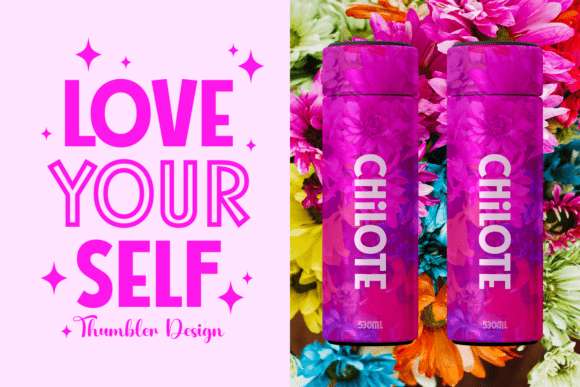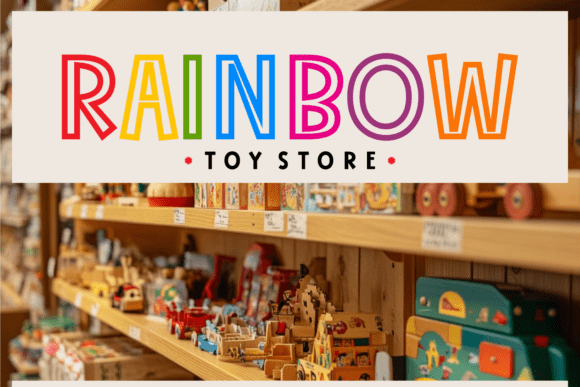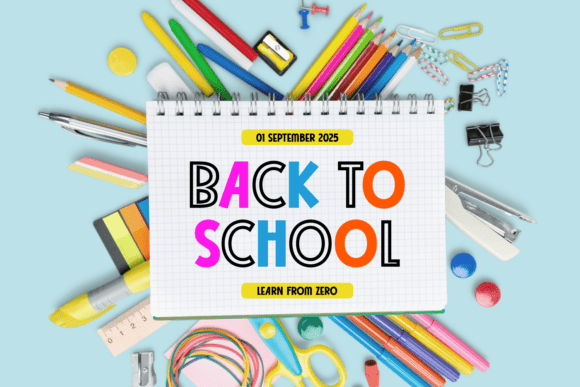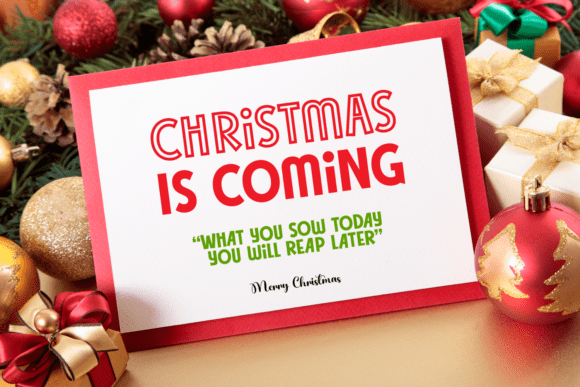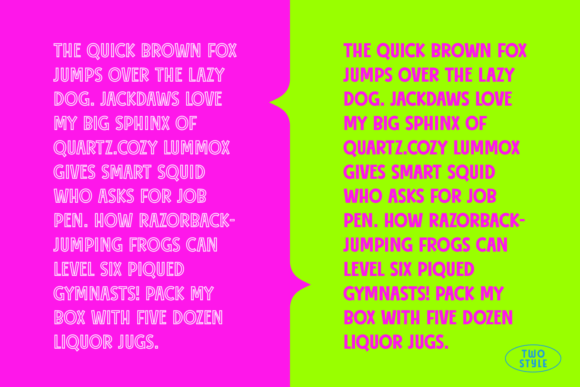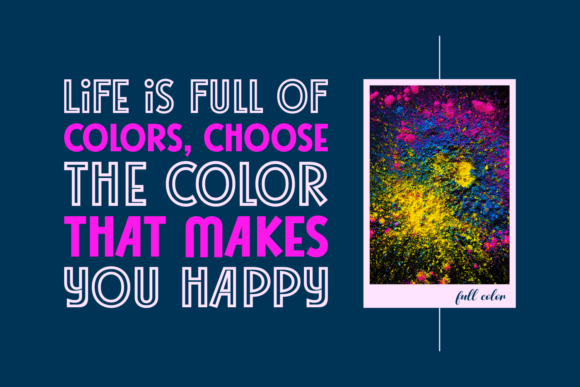
Introduction to Grinch Home Font
Have you ever stared at a blank canvas, wondering which font to choose for your next creative project? The blank page stares back, waiting for that perfect combination of style and personality. For designers, finding the right font can be a daunting task, but what if you could tap into a font that embodies the perfect blend of charm, humor, and sweetness?
Enter the Grinch Home Font, a delightful addition to any designer’s repertoire. This beautifully crafted typeface is a masterful combination of fun and charm, perfect for projects that require a playful yet inviting aesthetic. Whether you’re working on a design project that demands a soft, cuddly feel or something that speaks to the heart, the Grinch Home Font is a valuable resource that’s sure to bring a smile to your face.
Key Features of Grinch Home Font
- High-quality design: Grinch Home Font is a well-crafted font perfect for creative projects that require a unique touch.
- Unique characteristics: This font features a distinctive, playful design that’s perfect for adding a touch of whimsy to your creative projects.
- Design resource: Grinch Home Font is a valuable design resource that’s perfect for designers, artists, and anyone looking to add a unique touch to their work.
Honest Review: Grinch Home Font
I recently came across the Grinch Home Font, and I must say it’s been a great addition to my design toolbox. The font has a playful and quirky vibe, making it perfect for creative projects that require a bit of whimsy.
- ✨ High-quality design: The font is well-crafted and looks great on both digital and print materials.
- ⚠️ Limited character set: The font doesn’t have a complete character set, which may be a drawback for designers who need to use it for professional purposes.
- ⚠️ Not suitable for all designs: The font’s playful style may not be suitable for all types of projects, such as formal or corporate designs.
Overall, I’m impressed with the Grinch Home Font. It’s a great resource for designers who want to add a bit of fun and personality to their creative projects. Just be aware of its limitations and use it accordingly.
The Grinch Home Font is perfect for various design projects, including branding, marketing materials, and social media graphics. It’s also great for creating invitations, posters, and other print materials. With its high-quality design and free download option, you can use it in any creative project you have in mind.